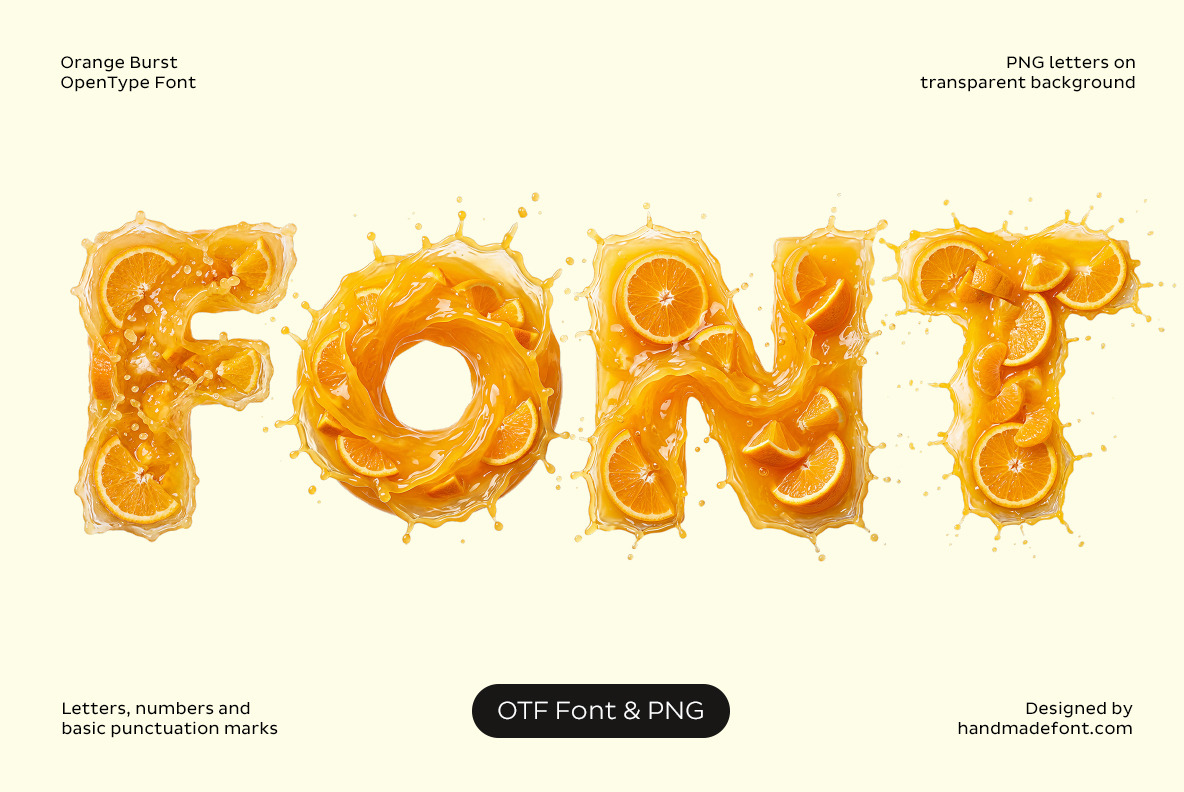
Orange Burst Font
Orange Burst Font is a juicy, eye-catching display typeface inspired by splashing orange juice and fresh citrus slices. Every character is crafted with glossy liquid textures, vibrant orange segments, and energetic splash details that bring playful summer vibes to any design. Perfect for food branding, beverage packaging, posters, social media graphics, advertising campaigns, event promotions, and bold creative projects that need an extra squeeze of personality. The package includes a fully functional OTF font for easy typing and design work, plus individual high-resolution PNG letters, numbers, and symbols on transparent backgrounds, allowing complete creative freedom for custom layouts, compositions, and eye-catching visual storytelling.